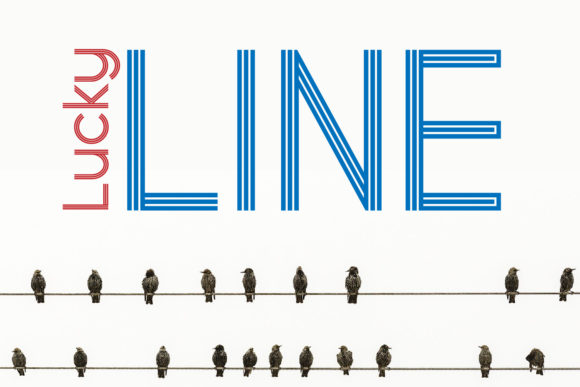
Lucky Line Font
Introducing Lucky Line Font, the display font that exudes modern charm, inviting you to step into a world of captivating typography. A creation of da_only_aan, Lucky Line is not just a font; it's an experience that transforms your designs into visually stunning masterpieces.
With its monogram style, Lucky Line is the perfect choice for creating personalized logos, monograms, and branding elements that stand out from the crowd. Its clean lines and elegant curves lend a touch of sophistication to any project, making it ideal for designers, crafters, and creative professionals of all kinds.
But Lucky Line is more than just a pretty face. It's a versatile performer that shines in a variety of applications. Use it to craft eye-catching headlines, stylish posters, unique invitations, or personalized greeting cards. Its versatility knows no bounds, allowing you to explore your creativity and create designs that captivate and inspire.
Designed with precision and attention to detail, Lucky Line ensures crisp, clean results every time you use it. Its smooth flow and balanced proportions create a harmonious visual experience that draws the eye and leaves a lasting impression.
Whether you're a seasoned pro or just starting out, Lucky Line is the perfect font to elevate your designs and take them to the next level. Its intuitive design makes it easy to use, even for beginners, while its vast potential for customization ensures that your creations will always be unique and captivating.
So, why settle for ordinary when you can have extraordinary? Embrace the magic of Lucky Line Font today and unlock a world of creative possibilities. Let your designs shine with a font that speaks to the heart and captures the imagination.